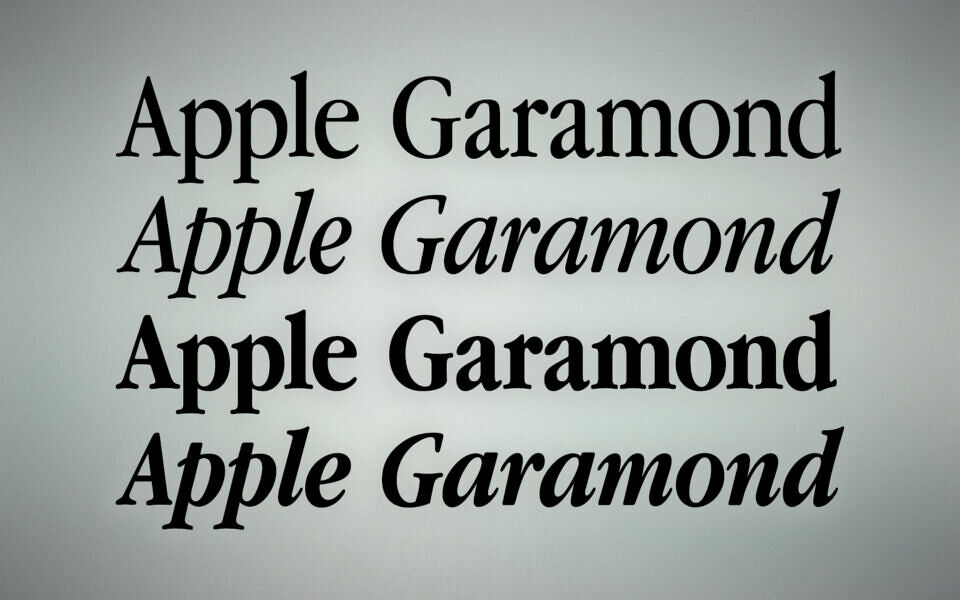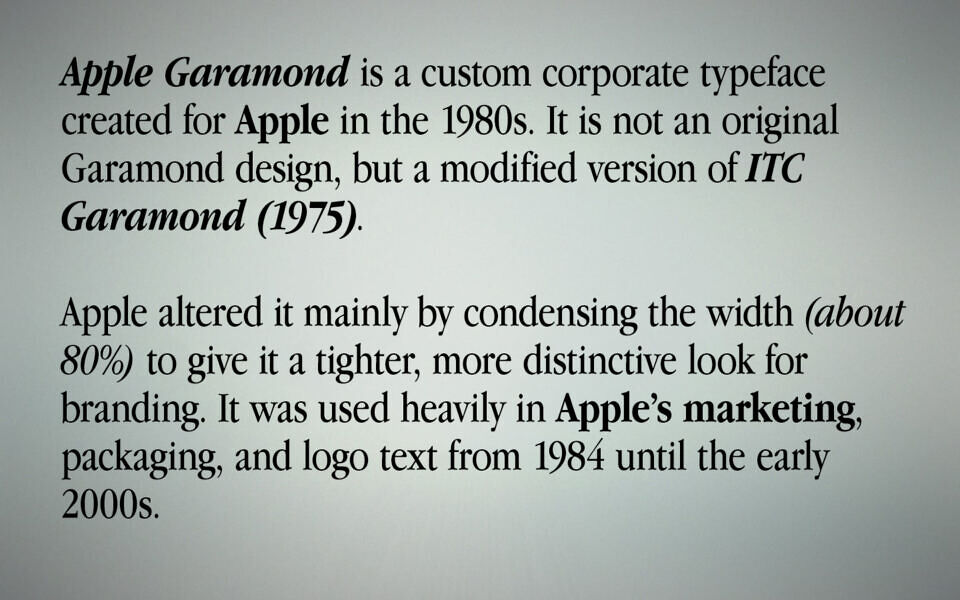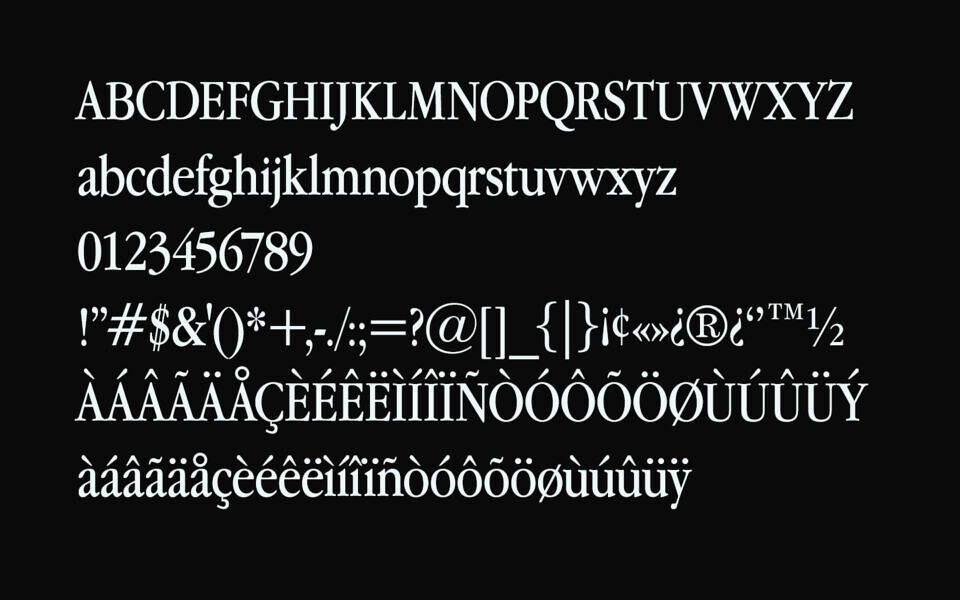
Apple Garamond is a refined serif typeface famously used by Apple Inc. in its branding from the 1980s to early 2000s. Based on ITC Garamond and condensed for a distinctive, elegant look, it offers six styles including Light, Regular, Bold, and italics.